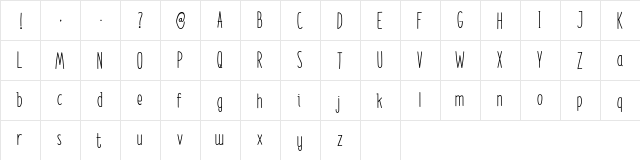
Poetry Regular
Design Context for Poetry Typeface
Poetry is a composed and adaptable typeface that performs quietly and consistently across a wide range of design contexts.